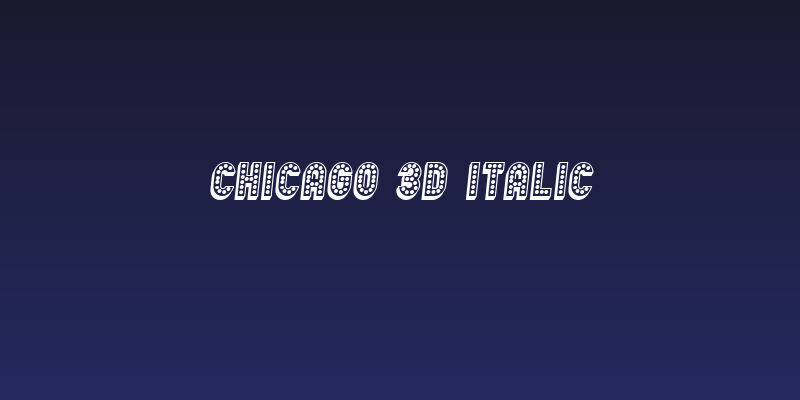
Chicago 3D Italic Font
Chicago 3D Italic Description
This font features a bold, three-dimensional design with a dotted pattern inside each character, creating a striking visual effect. The letters are italicized, adding a sense of movement and dynamism. The 3D aspect is emphasized by a shadow effect, giving depth and a playful, retro vibe. The uppercase and lowercase letters maintain consistency in style, with numerals and special characters following the same design principles. This font is ideal for projects that require a bold statement and a touch of nostalgia.
| Overall Style | Retro, Decorative |
| Proposed Projects | Ideal for retro-themed posters, event flyers, or branding that requires a bold, eye-catching typeface. |